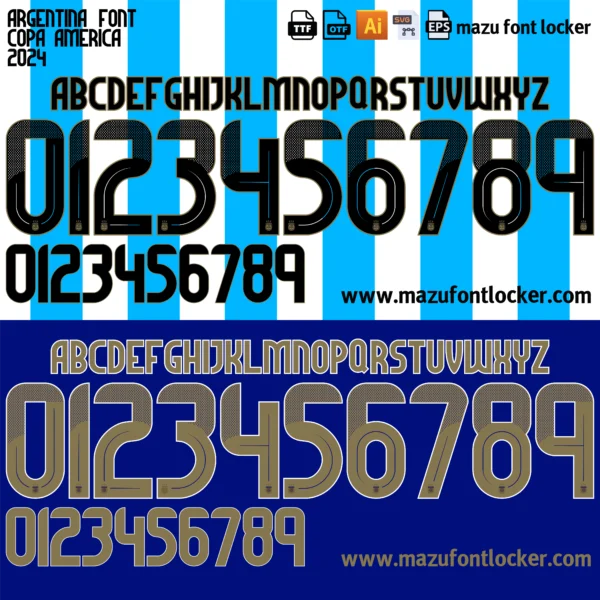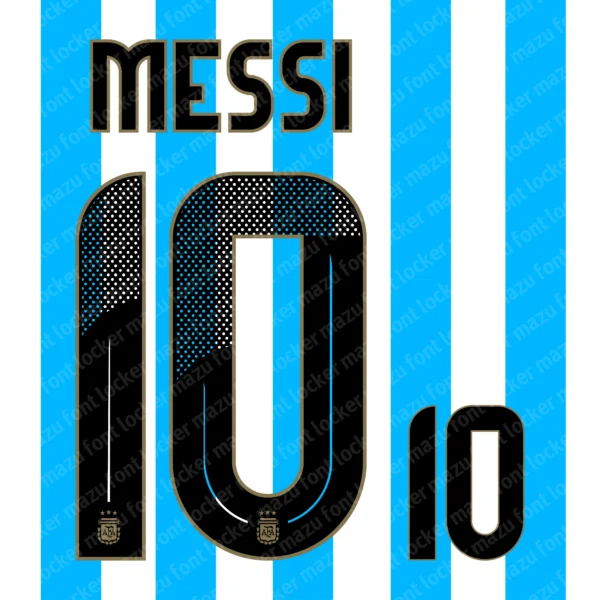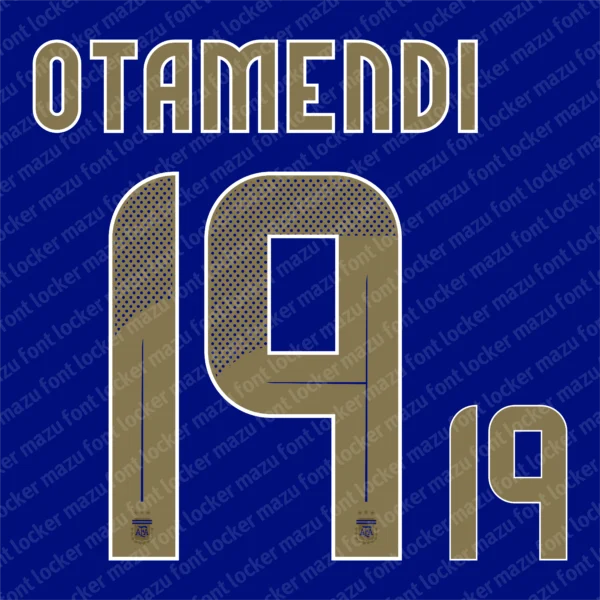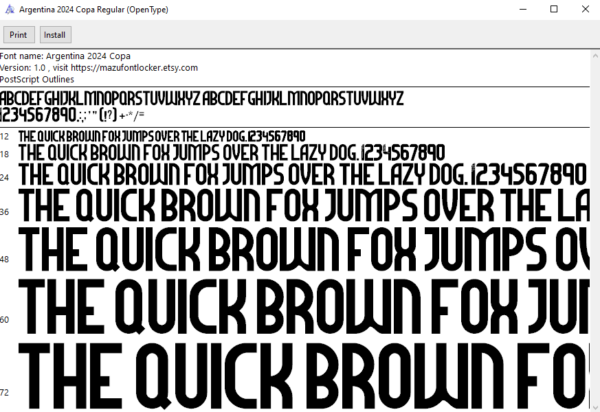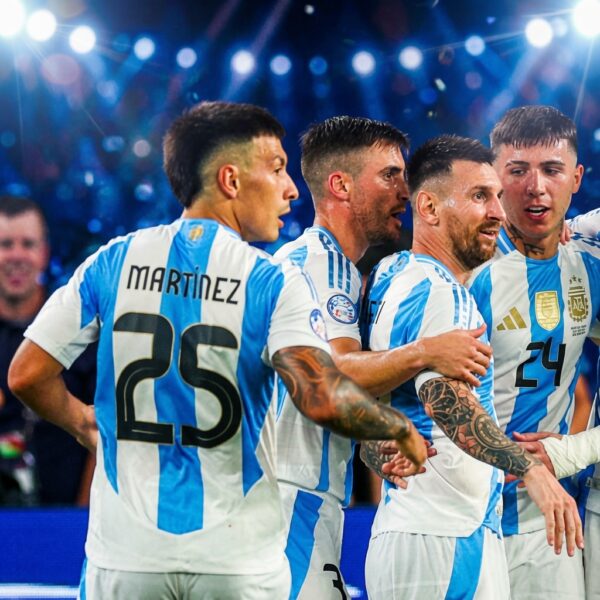
Argentina Copa America 2024 Font Vector – Legendary Sky Blue Glory Design
Download the Argentina Copa America 2024 Font Vector (AI, EPS, SVG, PDF, OTF, TTF) and unleash the bold, powerful, and triumphant match typography that thundered across the pitches during Argentina’s glorious Copa America 2024 victory. This premium font captures the commanding, iconic lettering that embodies the fearless Albiceleste spirit — delivering raw passion, explosive attacking brilliance, unbreakable team unity, and legendary Argentine fire. Perfect for premium jersey mockups, football designs, dynamic sports visuals, fan creations, stadium graphics, and epic tributes that radiate pure sky blue and white pride and celebrate the champions of South America.
Argentina Copa America 2024 Font Vector – Authentic Albiceleste Typeface
The Argentina Copa America 2024 Font Vector is a premium typeface that accurately recreates the official match lettering worn by the Argentina national team during their triumphant 2024 Copa América campaign. This high-quality vector font kit captures the bold, elegant, and iconic typography that represents one of the most celebrated victories in Argentine football history.
Designed for professional designers and passionate Argentina fans, the Argentina Copa America 2024 Font Vector delivers perfect authenticity for creating realistic jersey mockups, fan merchandise, matchday posters, social media graphics, and championship celebration content. It pairs beautifully with the iconic sky blue and white striped home kit featuring the famous AFA crest.
Why Choose Argentina Copa America 2024 Font Vector
This font stands out because of its sharp vector precision and strong national identity. Every letter and number is crafted to match the exact style used on the players’ shirts during the 2024 Copa América winning campaign. Whether you are making realistic kit templates or championship content, the Argentina Copa America 2024 Font Vector gives your designs that authentic Albiceleste look.
The letterforms in the Argentina Copa America 2024 Font Vector are tall, bold, and highly readable. The strokes have a strong, clean weight with excellent edge definition that looks powerful on the back of jerseys while maintaining modern elegance and clarity.
- Full uppercase A–Z and numbers 0–9 in authentic Argentina 2024 style
- Special AFA crest glyph for accurate shirt number detailing
- Multilingual Latin character support including diacritics
- Includes the exact crest glyph placement used under player numbers
The Argentina Copa America 2024 Font Vector is an independently designed typeface package. It is carefully crafted to replicate the official shirt lettering style of the 2024 Copa América campaign. This font kit is perfect for creative projects, fan edits, nostalgic jersey designs, and custom football graphics.